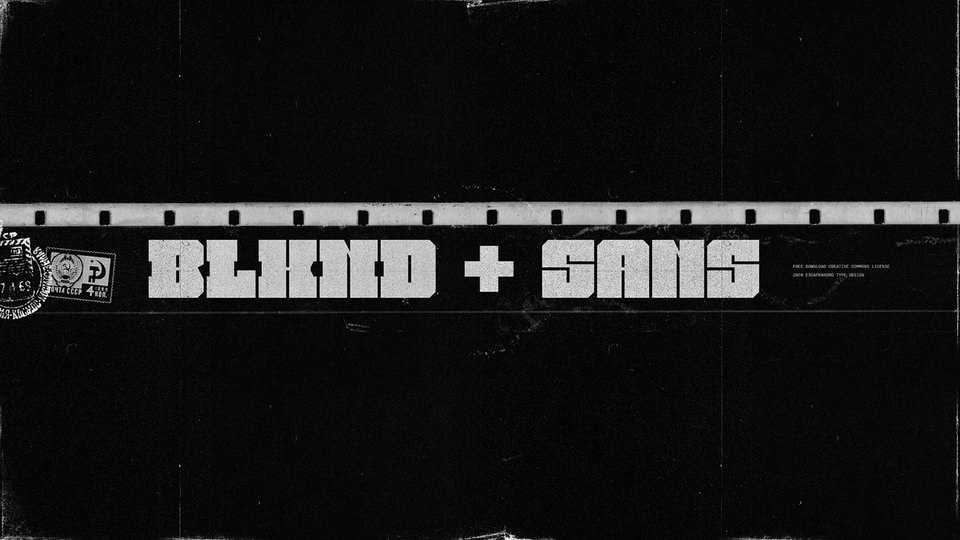
Download BLKND font, a bold typeface for hard times. BLKND Slab and Sans inspired by Letraset display fonts, eccentric designs, brutalist architecture and times of reclusion.
Designer: Rafael Nascimento